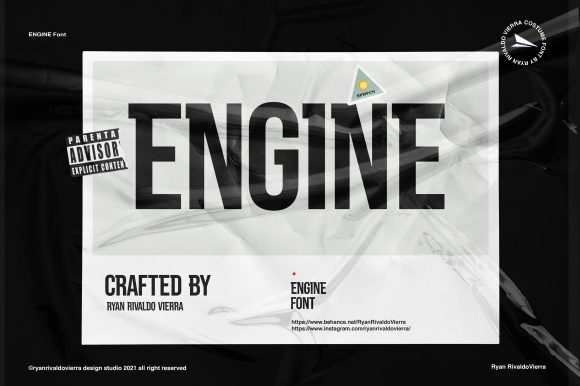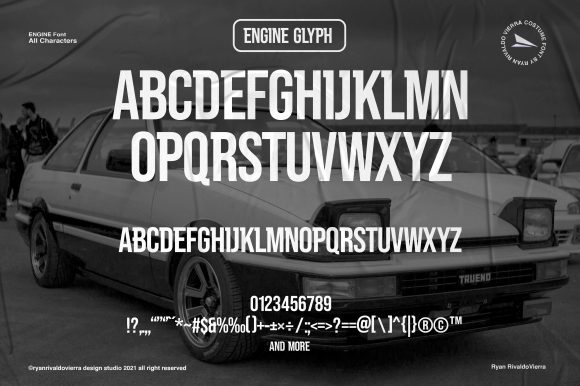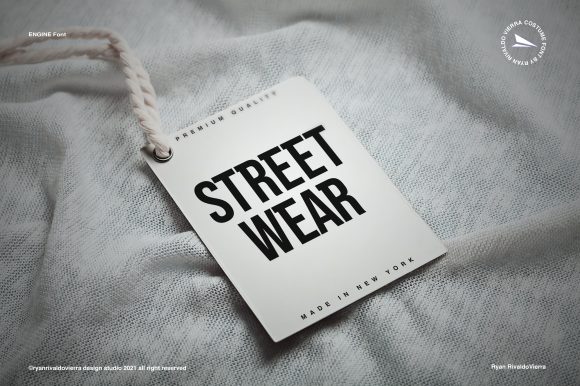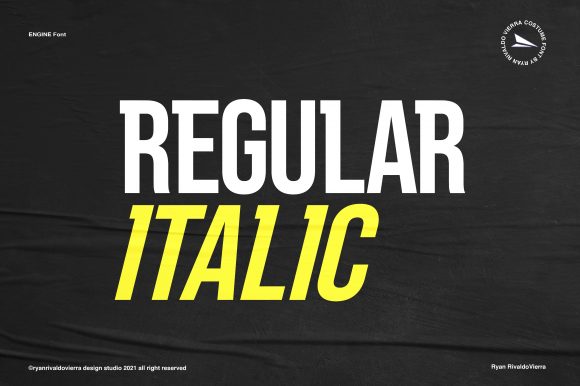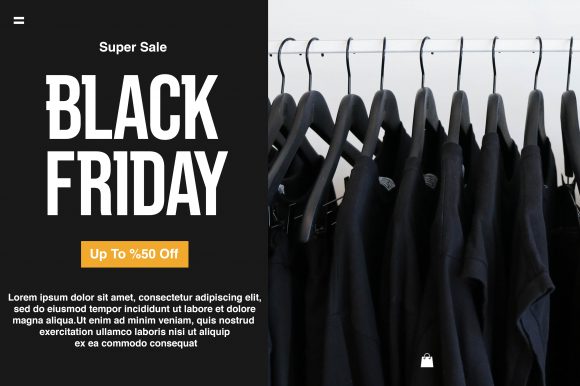
HomePersonal Use FreeEngine Personal Use Free Engine FacebookXPinterestWhatsApp 1 of 5 About Engine Font Engine is a simple and sharp looking display font, that will truly inspire your works.Use this font for your designs and explore its endless possibilities. DOWNLOAD NOW People also explored Braylyn Font Special Winter Family Font HT Tabaccaio Assembly Slab – Serif Font Beloved Diary Font Cocopath Font Brush Splash Font Distrik Font Black Cat Font 473 0 TagsBlack EngineEngine Font Previous articleEloquenceNext articleMustica LEAVE A REPLY Cancel reply Comment: Please enter your comment! Name:* Please enter your name here Email:* You have entered an incorrect email address! Please enter your email address here Website: Save my name, email, and website in this browser for the next time I comment. Personal Use Free Vinograd Personal Use Free Read more about this font I Am Exceptional Personal Use Free Read more about this font Welcome Creative Personal Use Free Read more about this font Colombia Personal Use Free Read more about this font BLOG How to Cut Any Font on Cricut: Convert a Font to SVG (Free) Turn any font into a clean SVG so it cuts crisp on Cricut - a quick 3-step workflow using a free font-to-SVG tool. To increase your work productivity, choose the most readable fonts. How to Install and Use Fonts on Windows, macOS, and Web Projects Best Fonts for T-Shirt Design – Top 2025 Picks